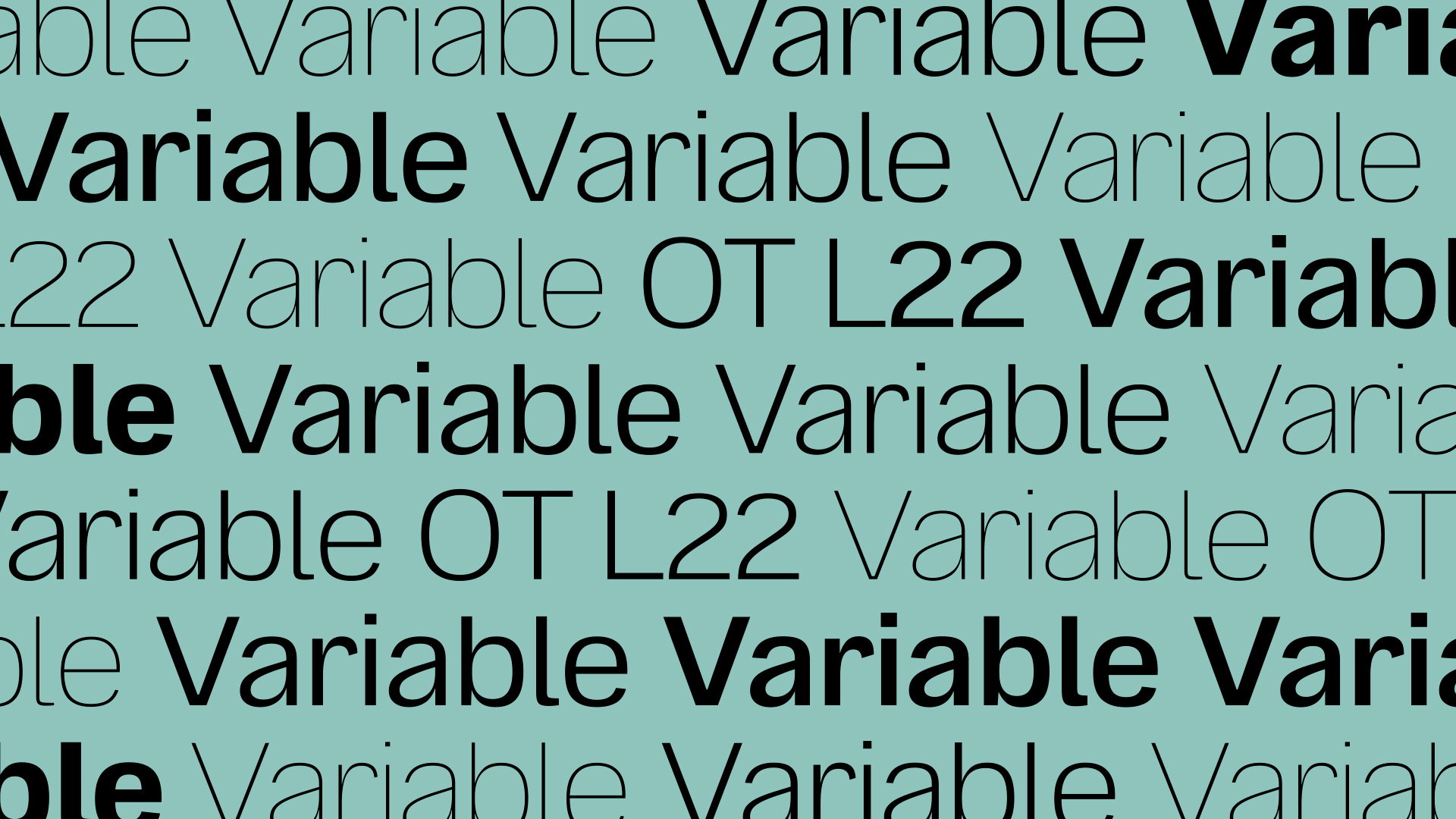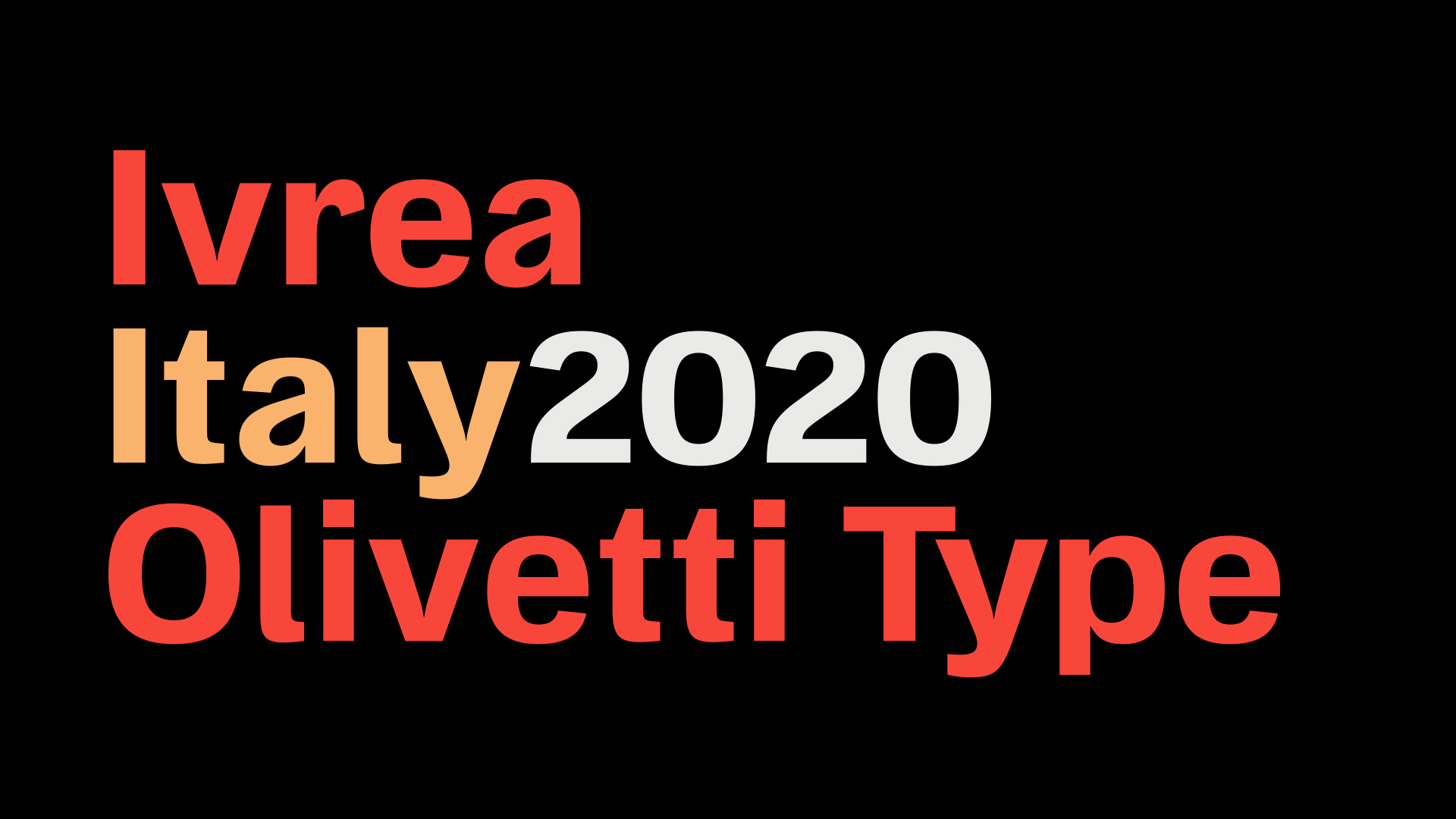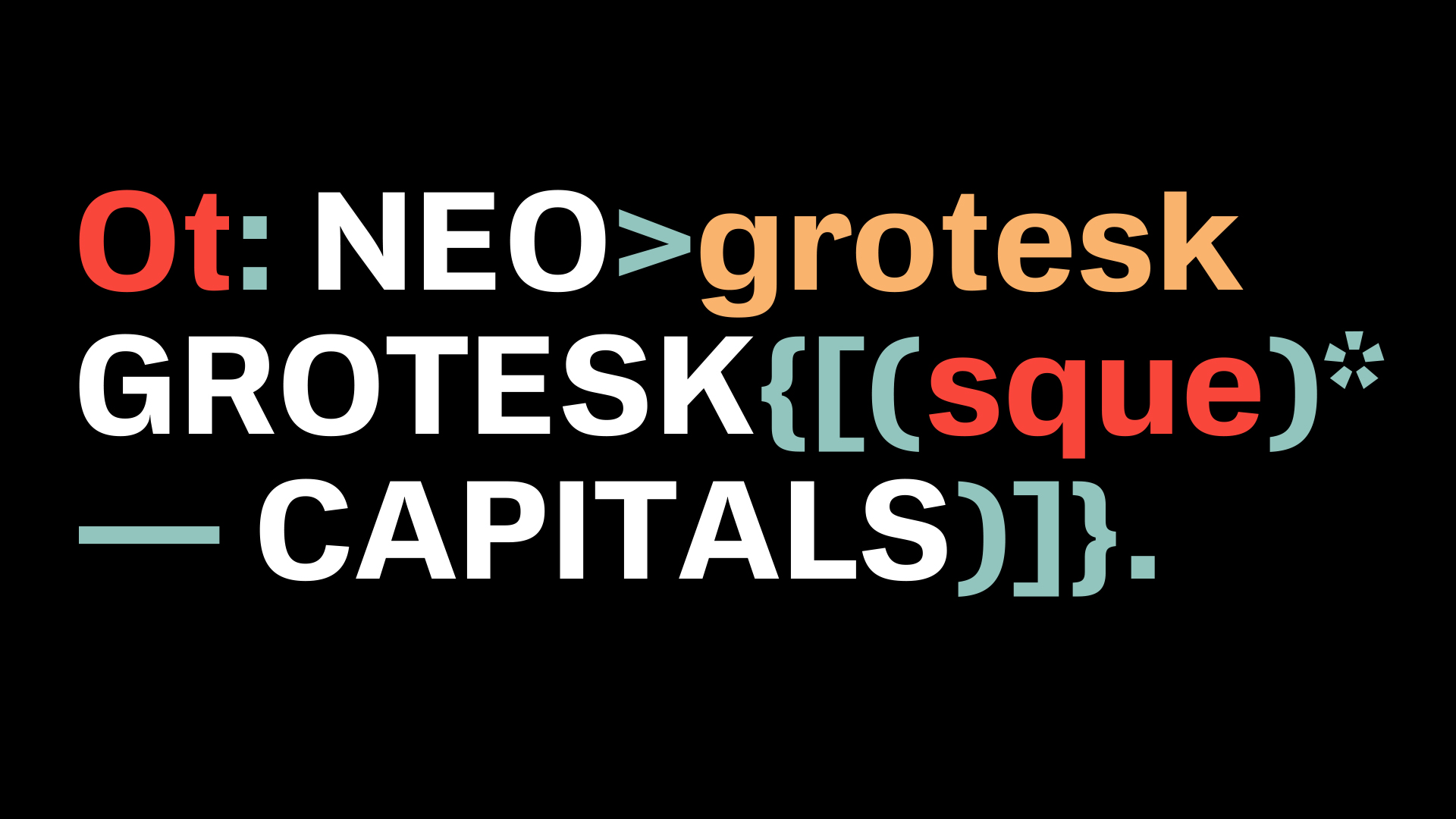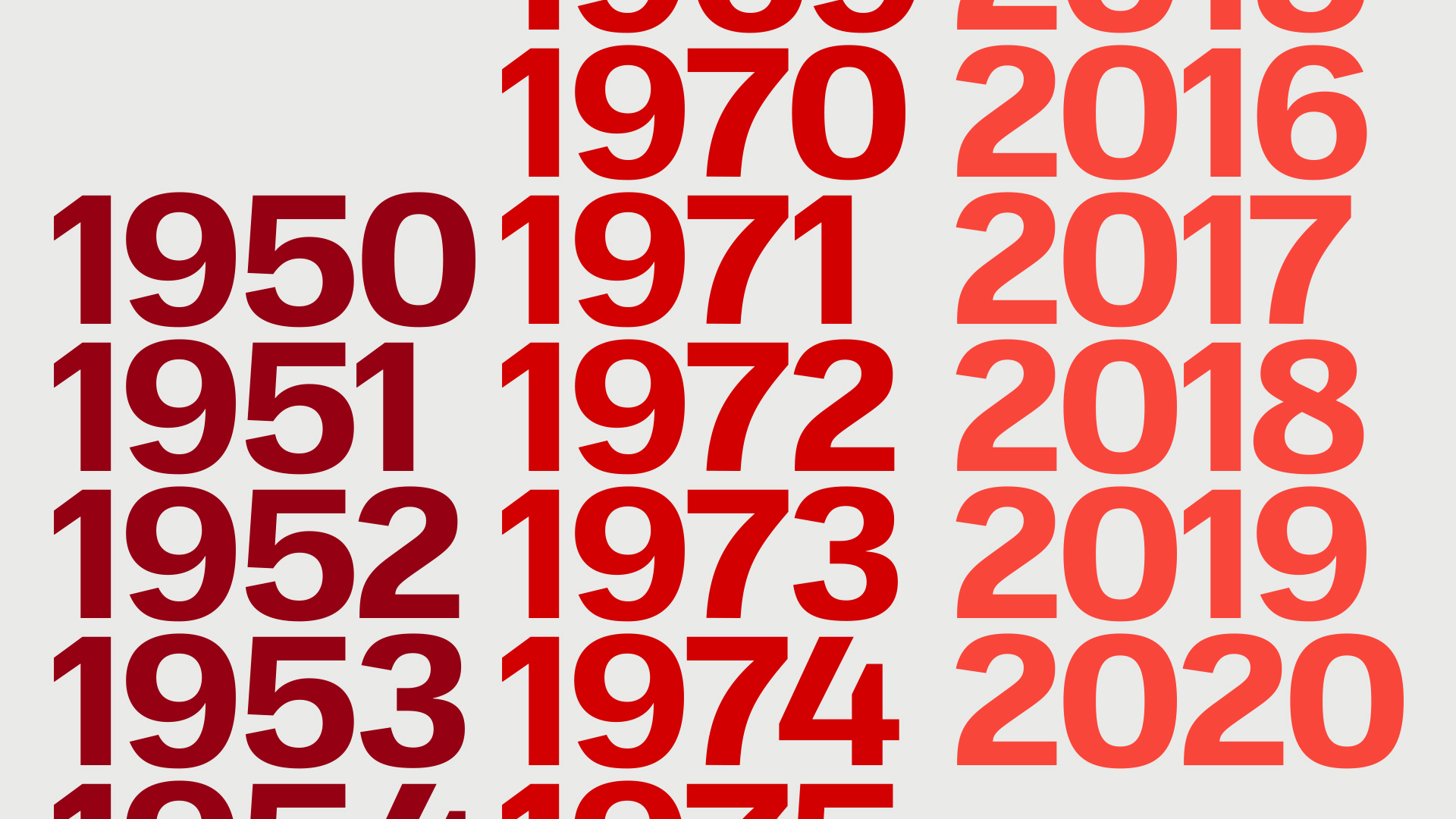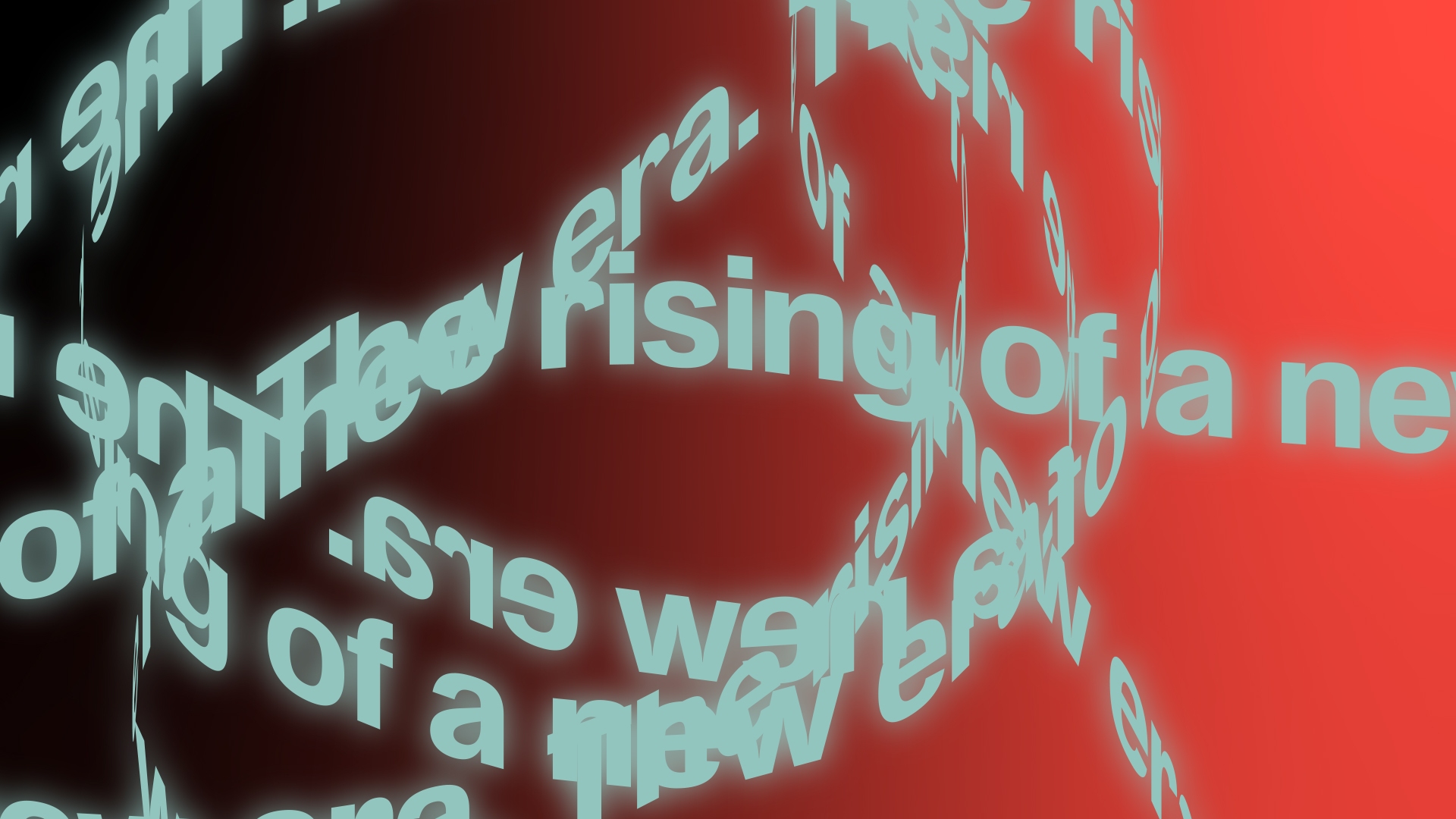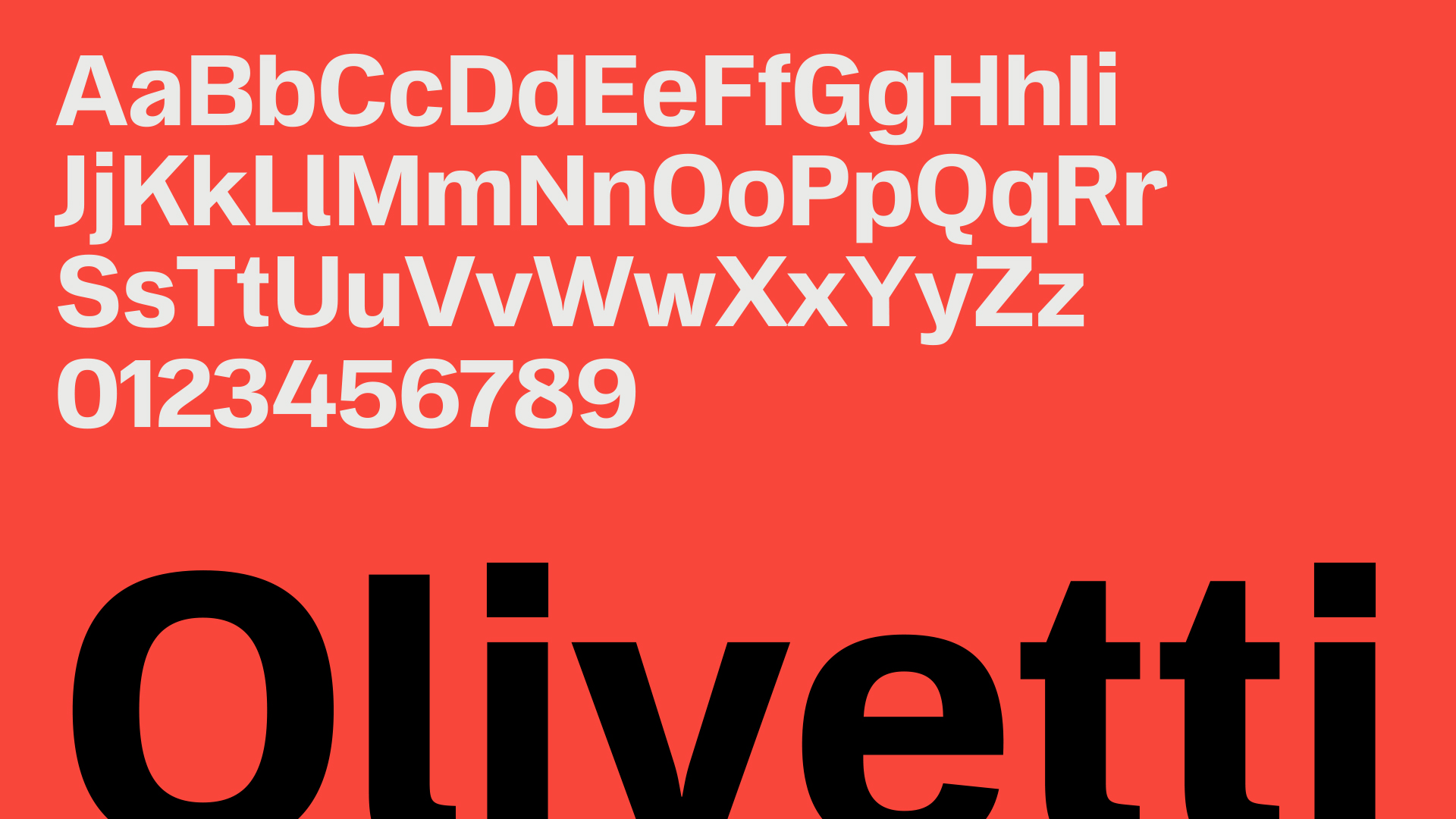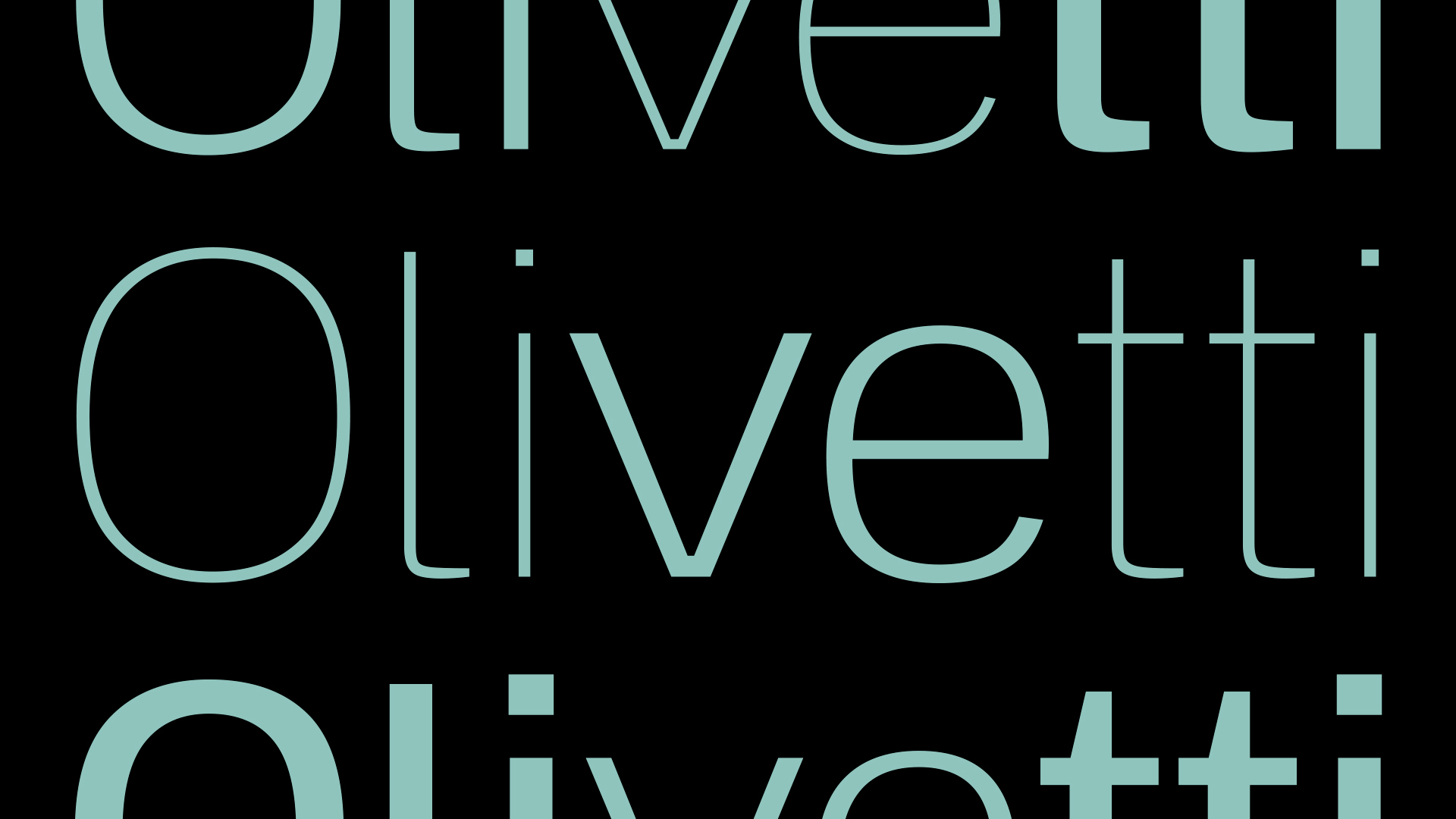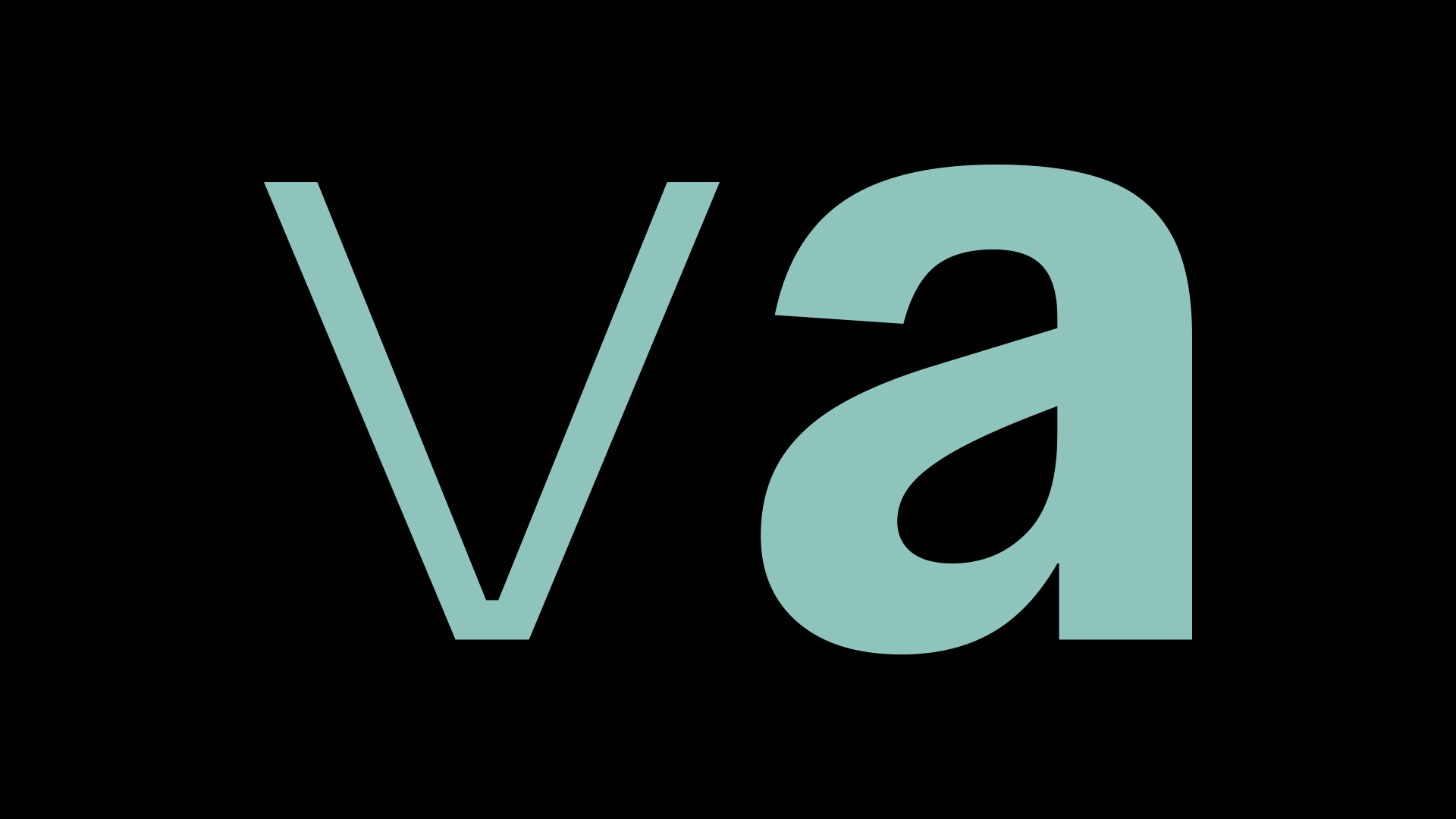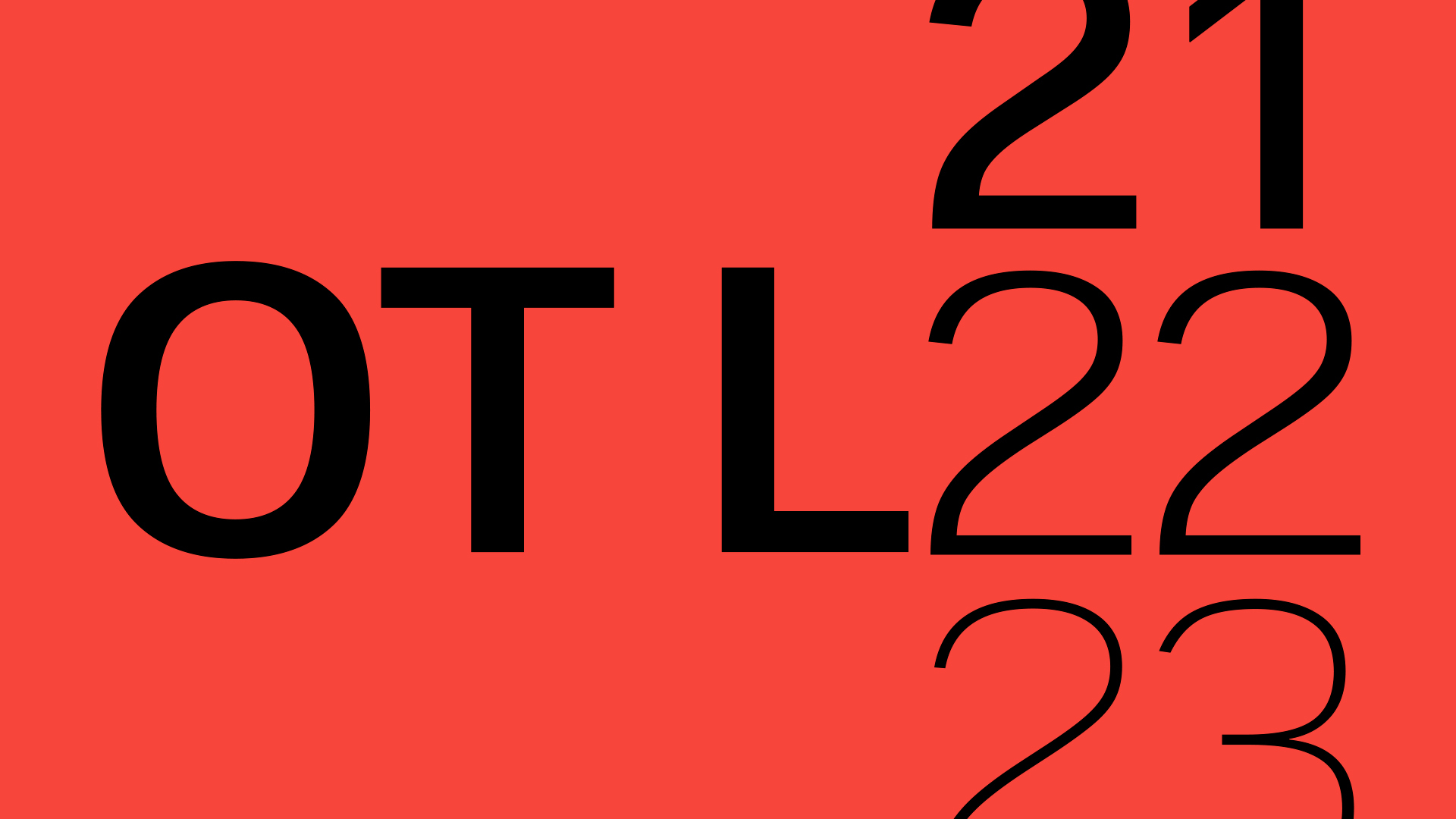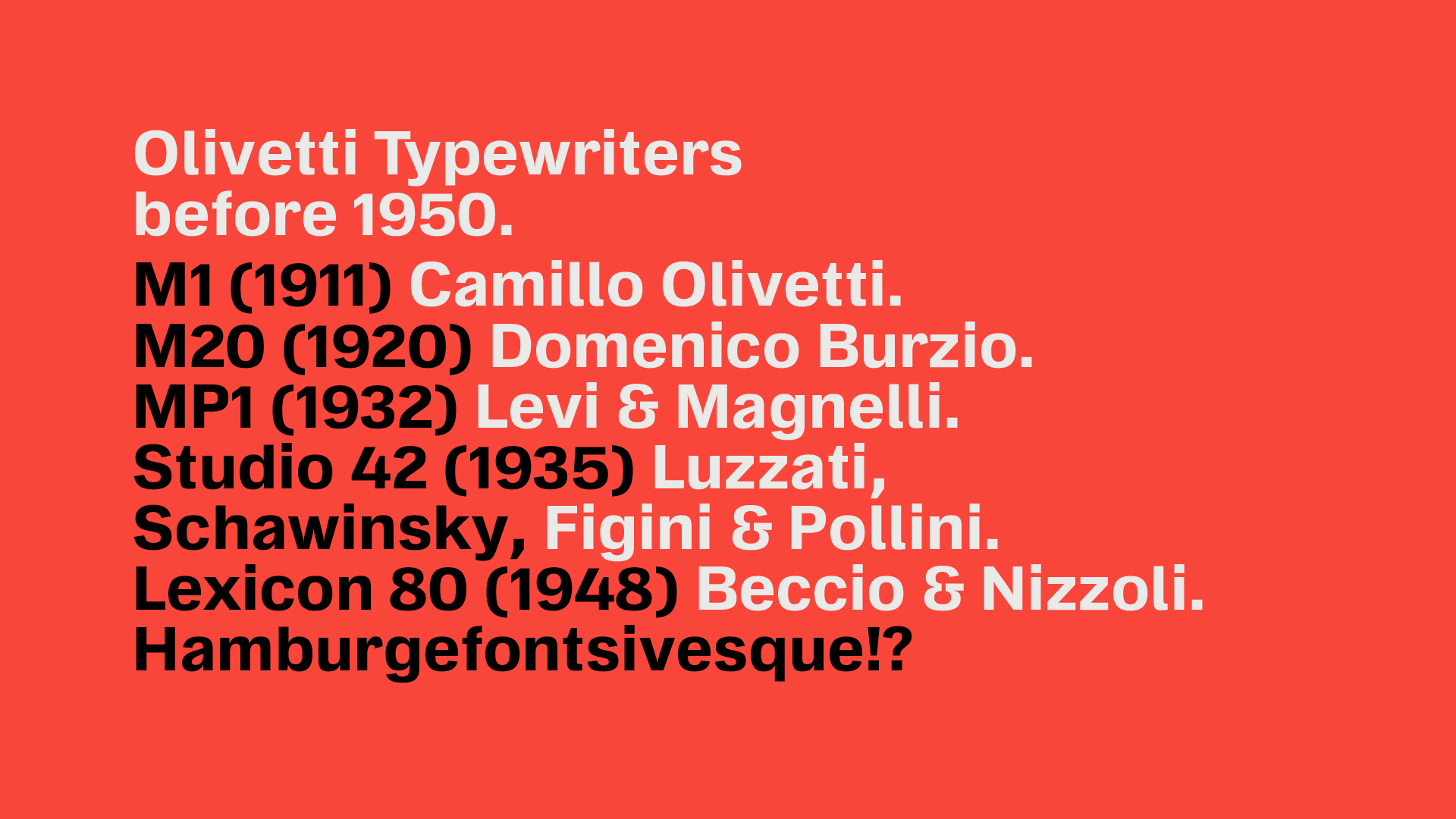
OT L22 is the new font inspired by Olivetti’s world and the mood of the iconic typewriter Lettera 22. The font was conceived and designed for the 70th anniversary of Lettera 22 to celebrate Made in Italy and Olivetti’s Style. Olivetti’s fundamental values can now revive thanks to the new OT L22 Type, a tool to rewrite history literally.
The OT L22 Type, in the Variable version, responds to the demands of our time and can be used on print and digital media. Typographically speaking, the style recalls the first “grotesque” and “gothic” typefaces that appeared in the late nineteenth century and have characterized Olivetti’s communication style ever since. From the origins of the grotesque style to the analysis of Olivetti’s typographical identity, up to the functionalism of the 20th century, the font design retraces Giovanni Pintori’s thinking. Together these elements laid the foundations for OT L22 font: the ultimate expression of an era and vision that made the history of Italian design and businesses. With compact but slim letters, the ovoid lettering communicates a sense of stability and impetus, underlining Olivetti’s innovative aspects.
“The OT L22 Type project combines traditional and innovative aspects of our history adapted for digital communication purposes, to broaden the dialogue from real to virtual communities”.
Gaetano di Tondo, President of Associazione Archivio Storico Olivetti, Communication&External Relations Director of Olivetti“Designing for Olivetti is a great honor for a Designer. Not only it means sharing the values of a community and a company, but also being compared to the big names who made the history of design”.
Emanuele Cappelli, Funder & Creative Director in Cappelli Identity Design